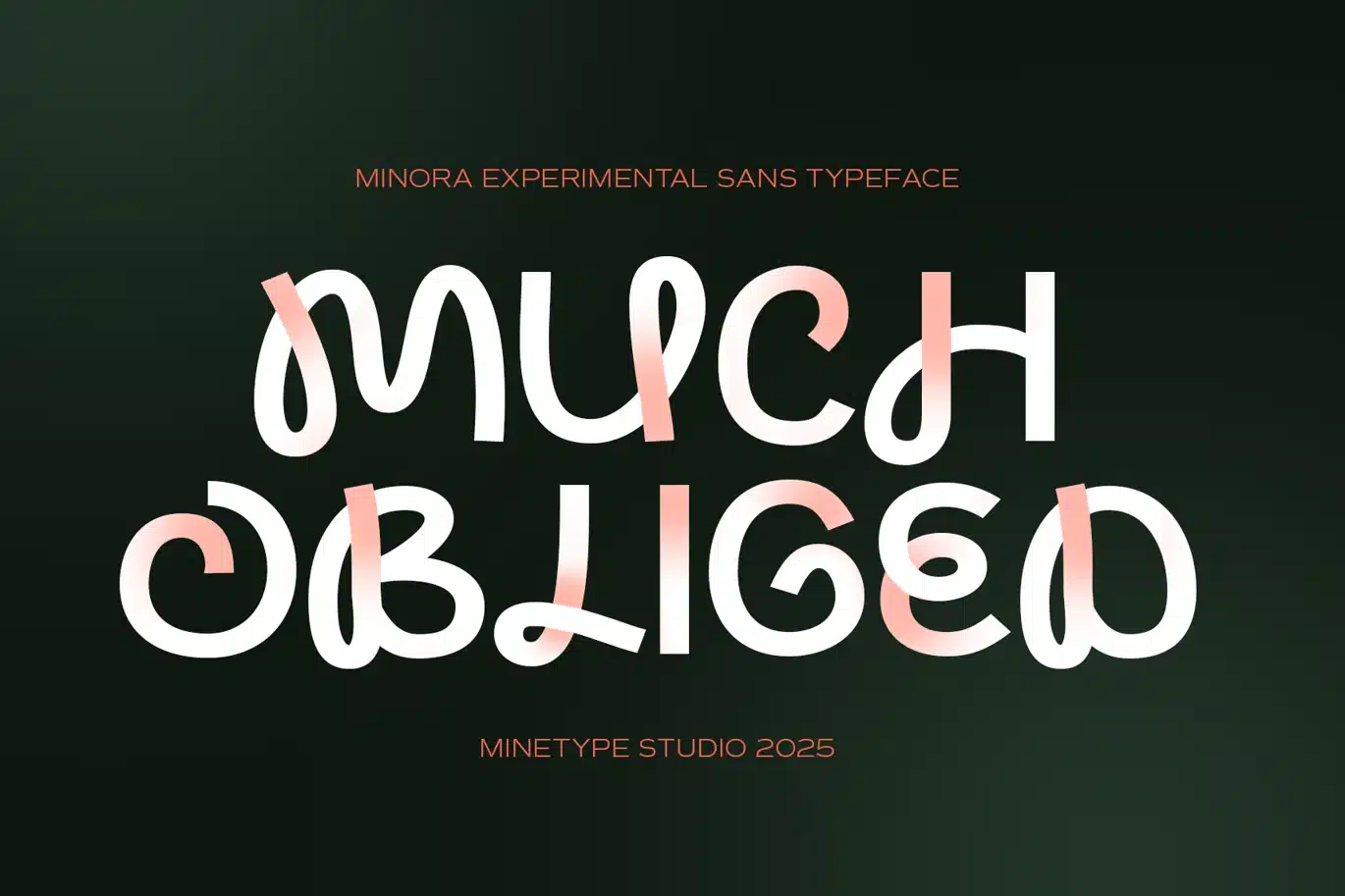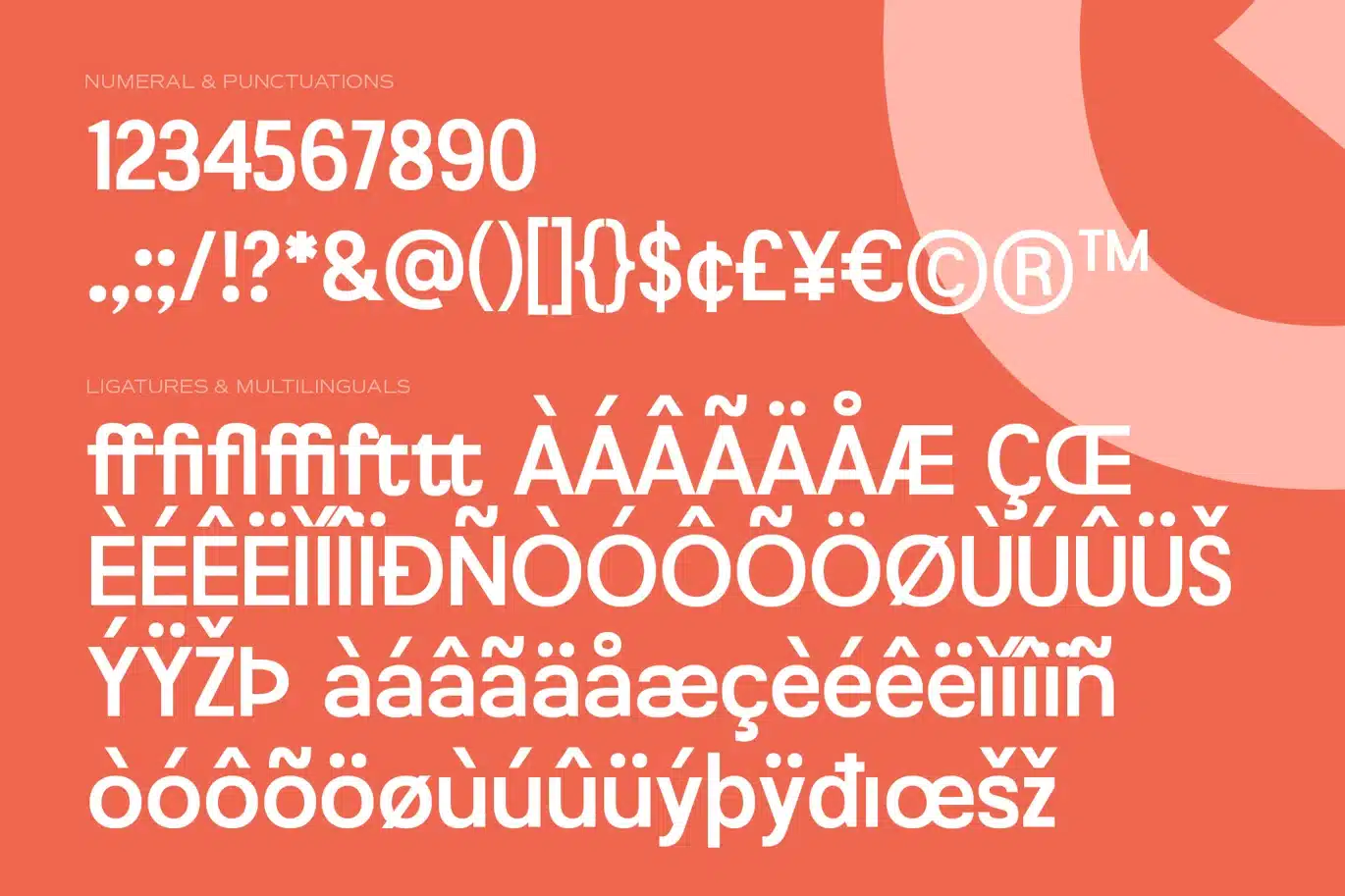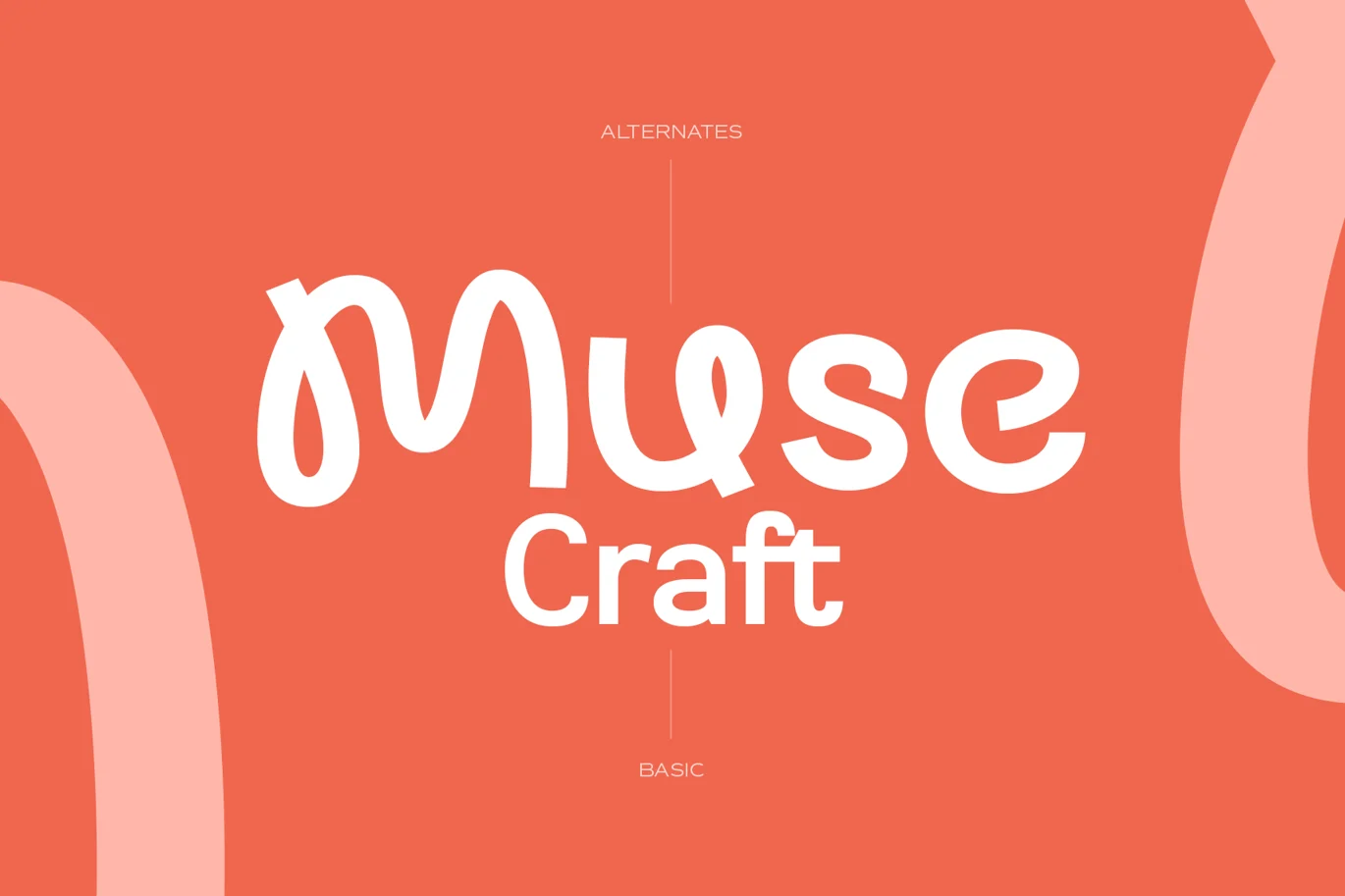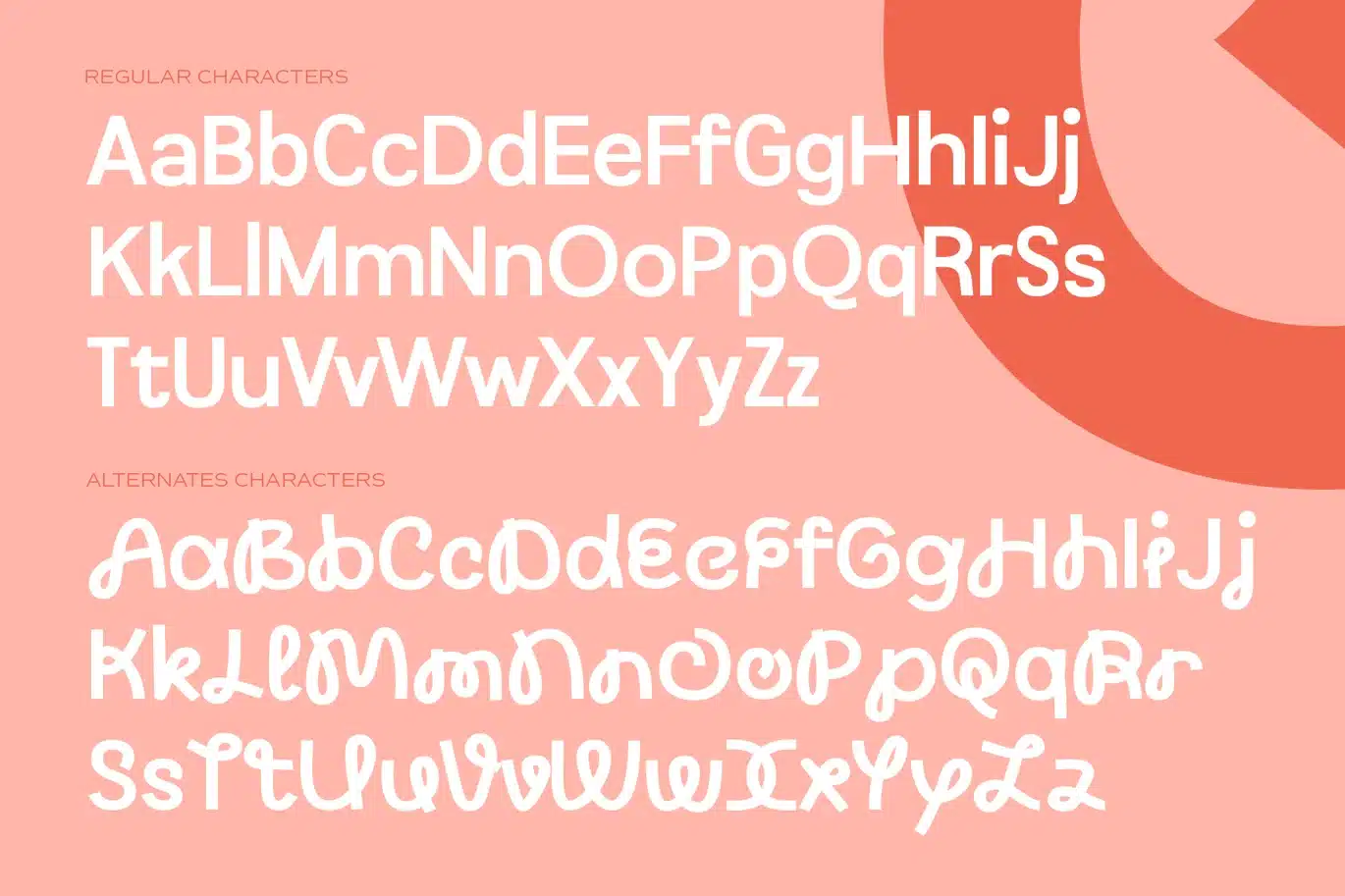
Nimora – Experimental Unique Sans Font
Nimora is a creative experimental sans-serif font with a bold and modern style. Designed with geometric precision and artistic curves, Nimora stands out in headlines, branding, posters, album covers, and editorial layouts. It blends the futuristic character of tech-inspired fonts with the elegance of minimal design, making it perfect for digital, print, and motion graphics projects.
Whether you're creating a visual identity, UI typography, or standout social media graphics, Nimora delivers strong personality with high readability. Ideal for designers, art directors, and creators seeking something fresh and unconventional.